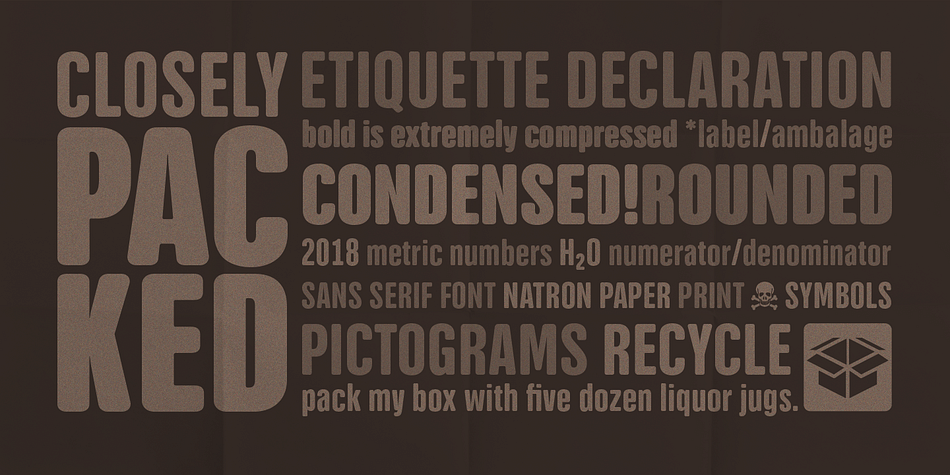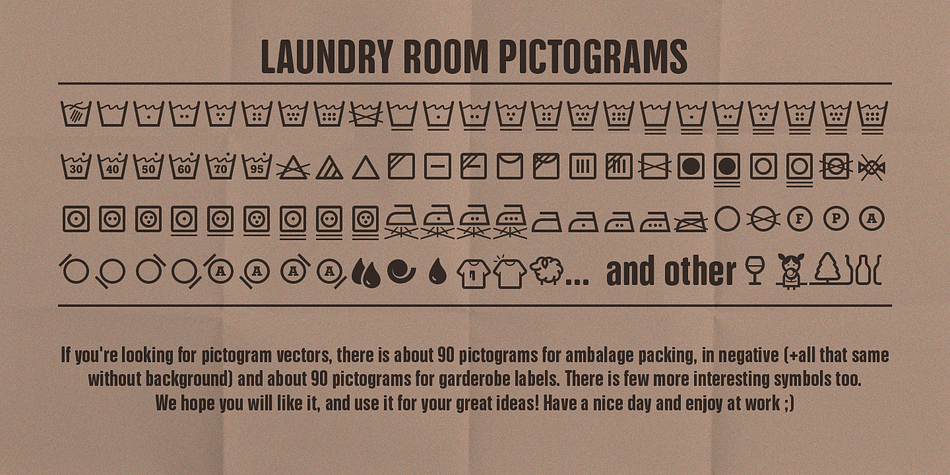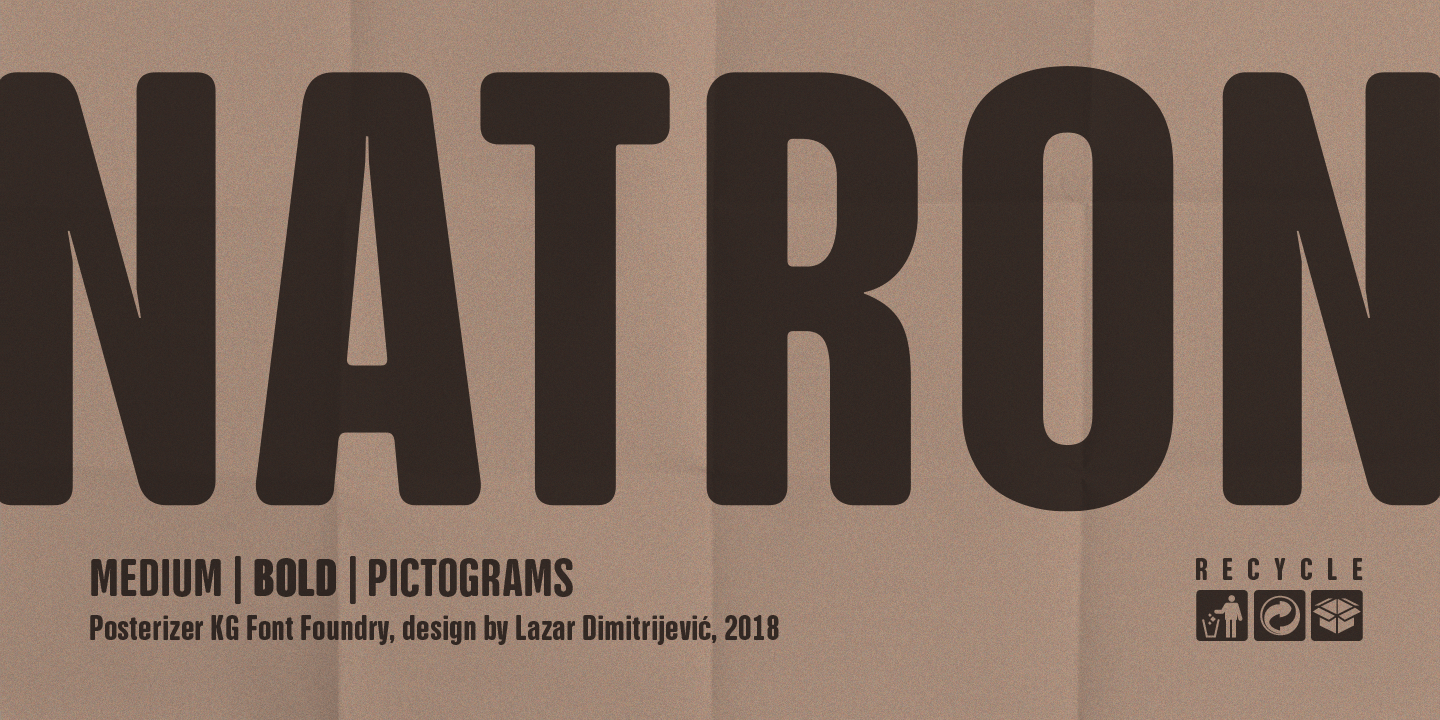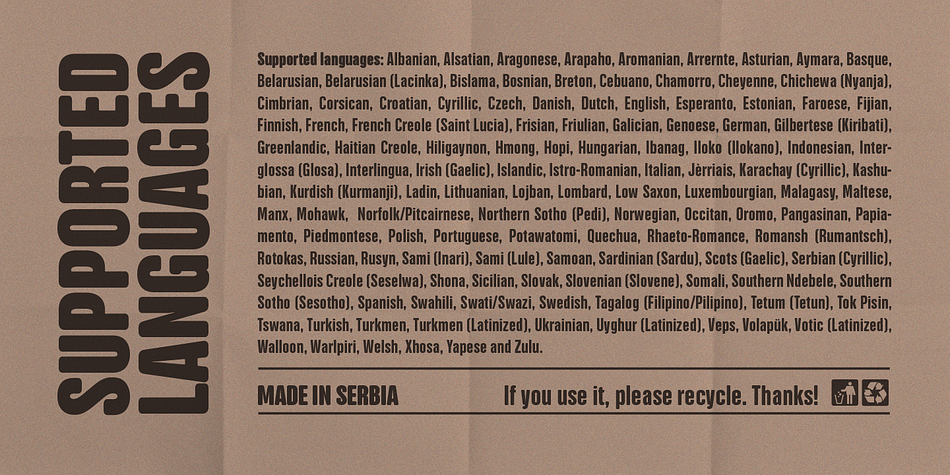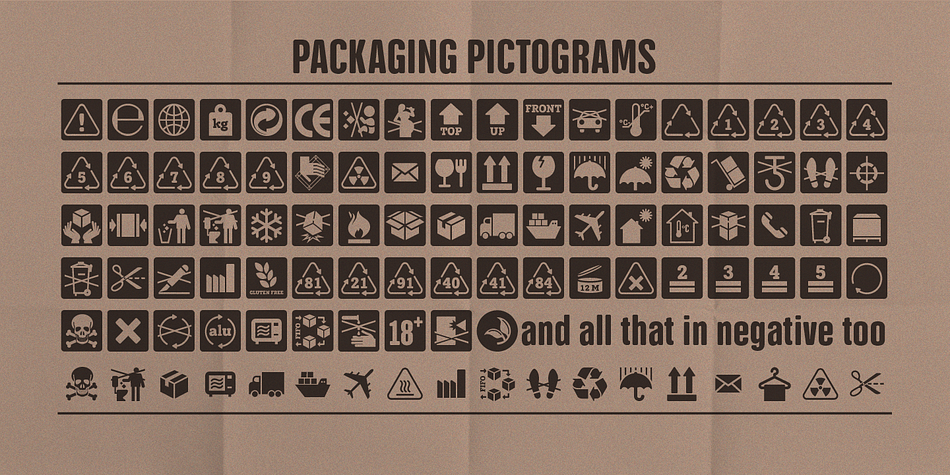
Designed by Lazar Dimitrijević, NATRON is a dingbat and display sans font family. This typeface has three styles and was published by Posterizer KG.
NATRON is rounded and condensed sans serif typeface, designed for tight-fitting text. Supports Latin and Cyrillic codepages for Western, East and Central European, and Baltic countries. NATRON family has two weights, medium and bold, and a collection of thematic adapted pictograms (for food product packaging and textile industry). This typeface has been designed for all type of visual communication projects and especially for labels and packaging and accompanying declarations.
Designer | Lazar Dimitrijević |